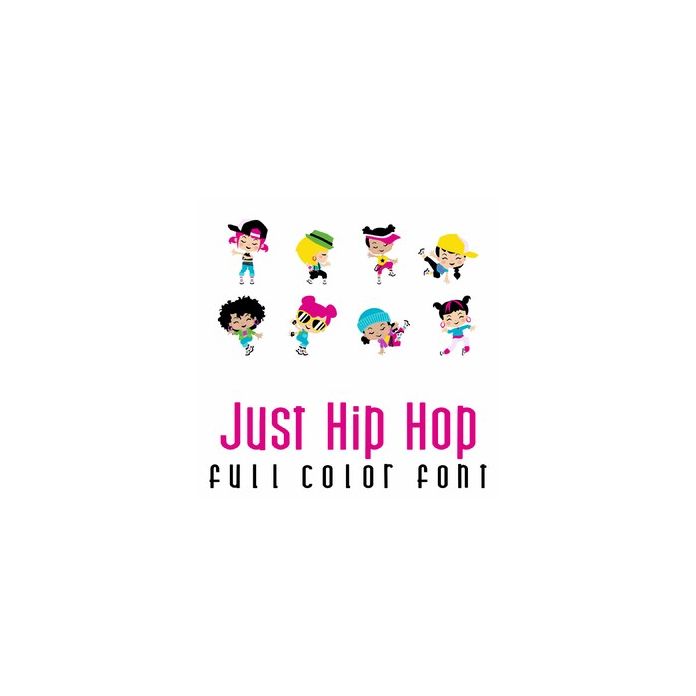
This adorable full-color doodlebat font features 26 adorable hip hoppers doing their dancing. Perfect for cards, crafts, gifts, decor, scrapbook pages, planner stickers, and more!